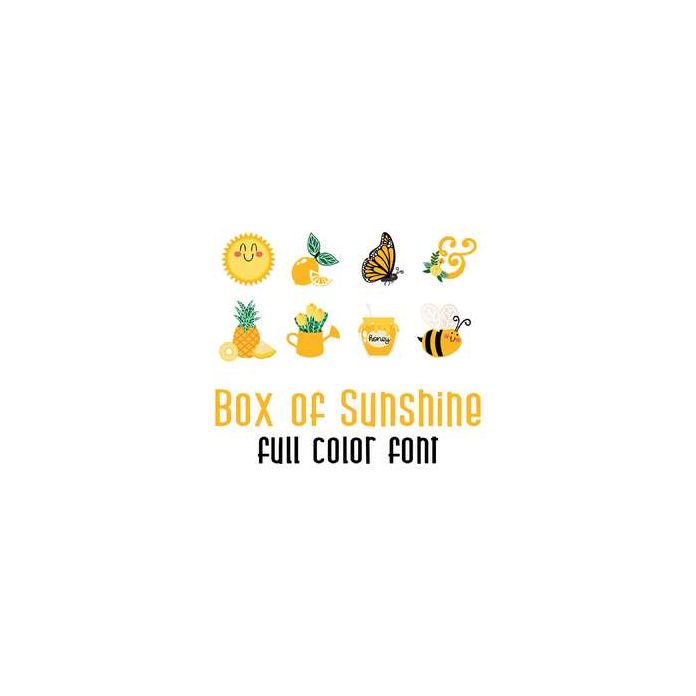
This adorable full color doodlebat font features the happiest of images perfect for making your own box of sunshine. Create fun cards, crafts, gifts, decor, scrap book pages, planner stickers and more!